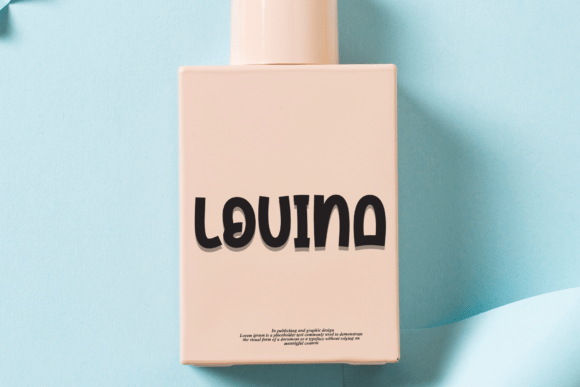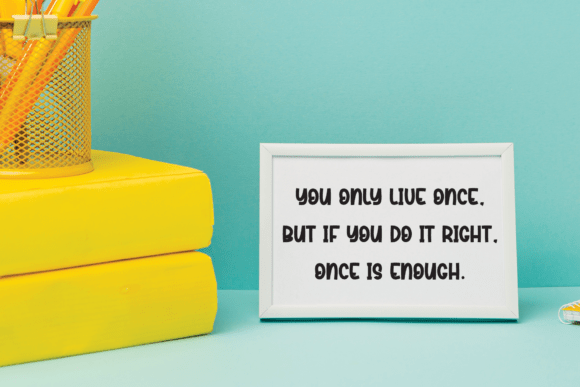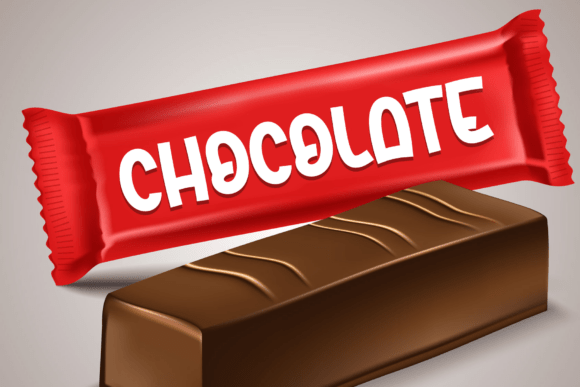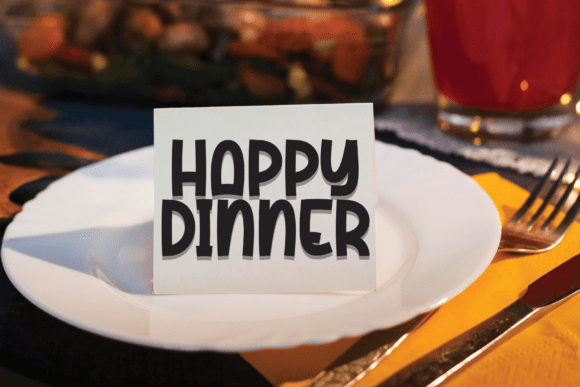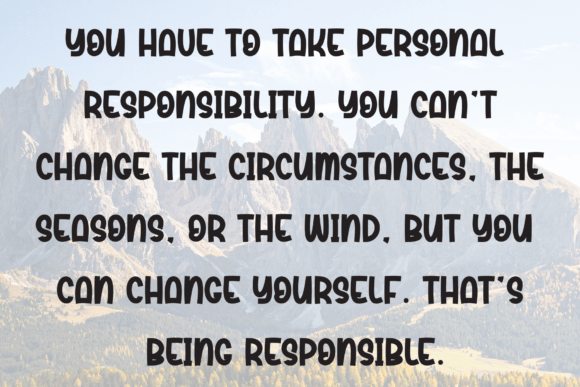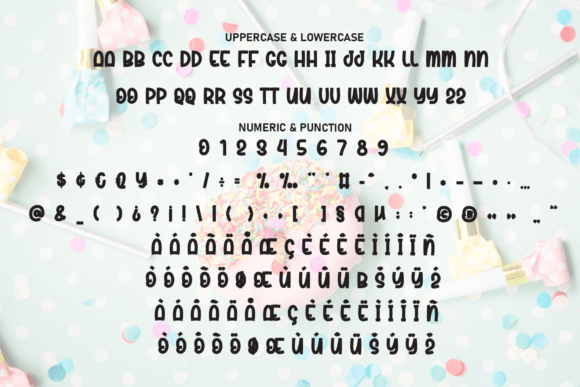
Introducing Birthday Party Font: The Ultimate Choice for Festive Designs
Are you looking for a font that can add a touch of festivity and friendliness to your designs? Look no further than the Birthday Party font! This casual and neat display font is perfect for creating eye-catching packaging, posters, and social media graphics that radiate a fresh and approachable vibe.
What Makes Birthday Party Font So Special?
Birthday Party font boasts clean lines and a relaxed structure that gives it a unique charm. The font’s design is approachable, making it perfect for projects that require a friendly and polished appearance. Whether you’re working on a packaging design, poster, or social media graphic, this font is sure to add a touch of warmth and personality to your project.
Key Features of Birthday Party Font
- Clean Lines: The font features clean lines that give it a crisp and modern look.
- Relaxed Structure: The relaxed structure of the font makes it perfect for creating designs that require a friendly and approachable vibe.
- Fresh and Friendly Vibe: The font radiates a fresh and friendly vibe that’s perfect for festive designs.
- Perfect for Packaging, Posters, and Social Media Graphics: The font is ideal for creating eye-catching packaging, posters, and social media graphics.
Why Designers and Crafters Love Birthday Party Font
Designers and crafters love Birthday Party font for its versatility and charm. The font is perfect for creating a wide range of designs, from festive party invitations to social media graphics and packaging. The font’s approachable design makes it easy to pair with other fonts, and its polished appearance ensures that your designs look professional and eye-catching.
How to Use Birthday Party Font in Your Designs
Using Birthday Party font in your designs is easy! Here are a few tips to get you started:
- Pair it with Other Fonts: Pair Birthday Party font with other fonts to create a unique and eye-catching design.
- Use it for Headings and Titles: Use Birthday Party font for headings and titles to add a touch of festivity and friendliness to your design.
- Experiment with Colors: Experiment with different colors to find the perfect combination that matches your brand’s style.
Benefits of Using Birthday Party Font
Using Birthday Party font in your designs comes with a range of benefits, including:
- Unique and Eye-Catching Designs: The font helps you create unique and eye-catching designs that stand out from the crowd.
- Fresh and Friendly Vibe: The font adds a fresh and friendly vibe to your designs, making them more approachable and engaging.
- Polished Appearance: The font’s polished appearance ensures that your designs look professional and high-quality.
In conclusion, Birthday Party font is the ultimate choice for designers and crafters looking for a casual and neat display font that radiates a fresh and friendly vibe. With its clean lines, relaxed structure, and approachable design, this font is perfect for creating eye-catching packaging, posters, and social media graphics. So why wait? Download Birthday Party font today and start creating festive designs that charm and engage your audience!
- What type of font is Birthday Party font? Birthday Party font is a casual and neat display font.
- What is Birthday Party font perfect for? Birthday Party font is perfect for packaging, posters, and social media graphics.